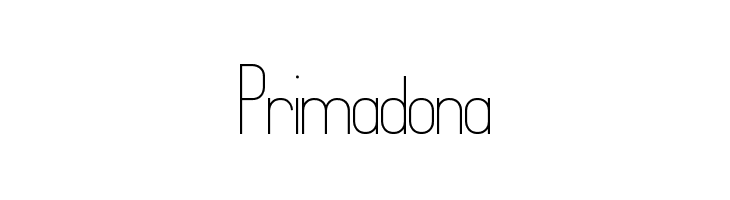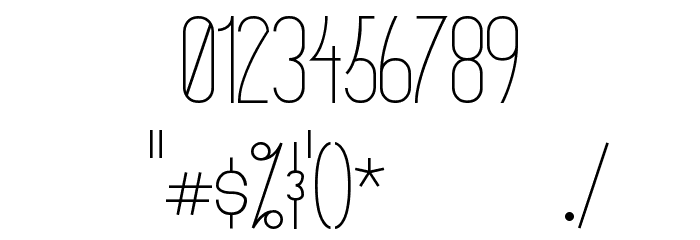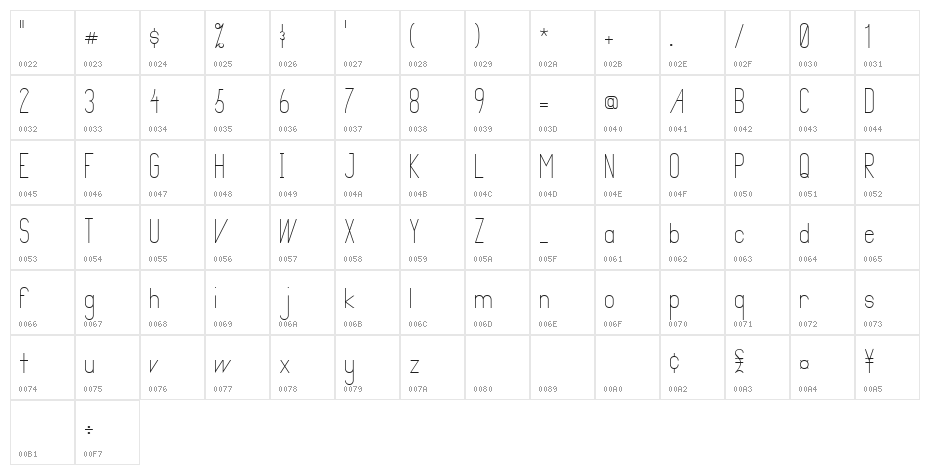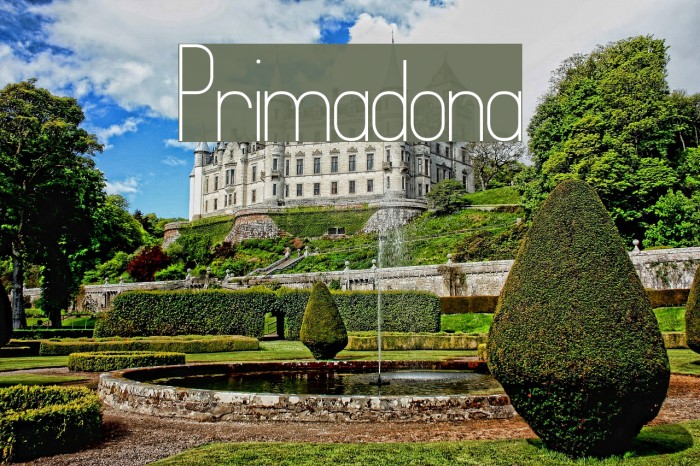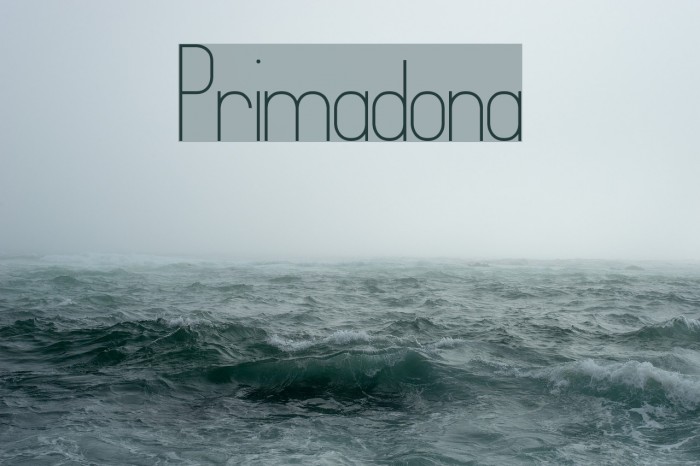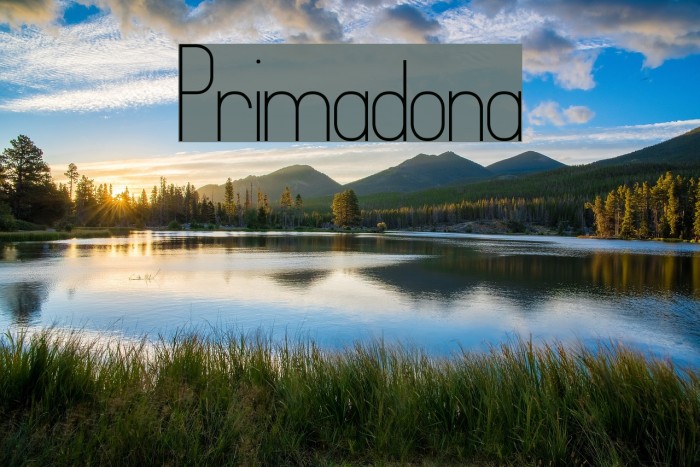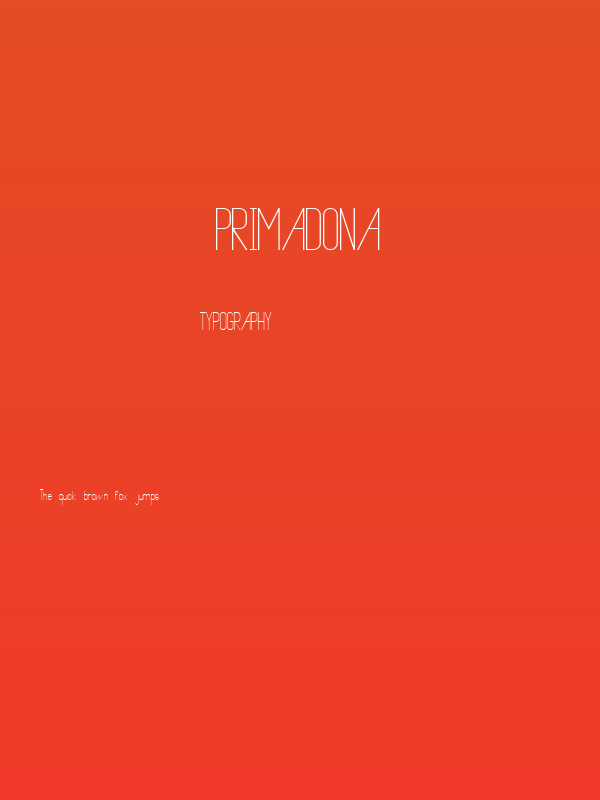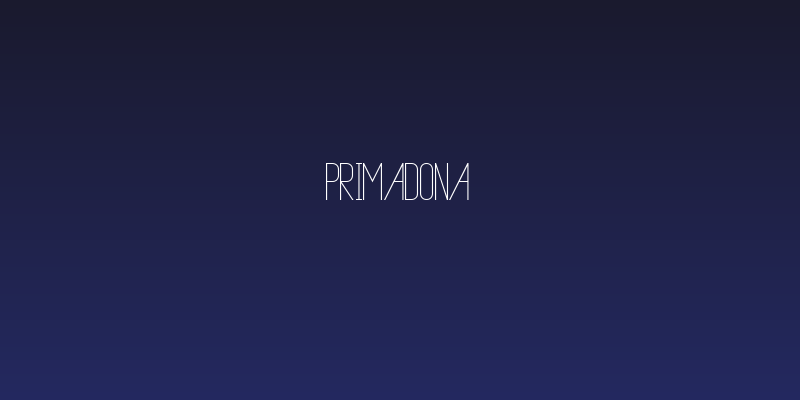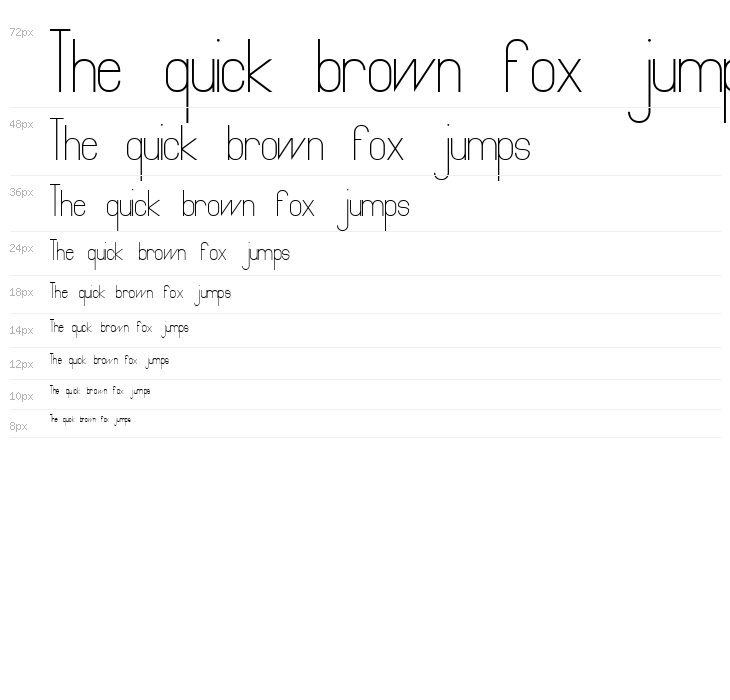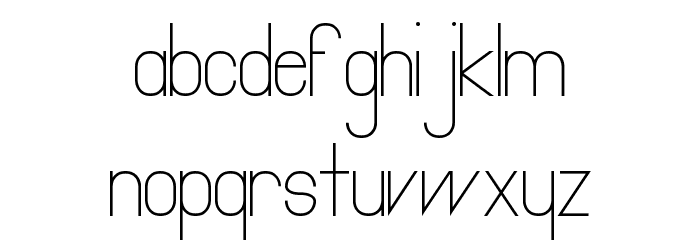
Primadona Font
Primadona Description
This font features a sleek, modern design with elongated, thin strokes that give it a sophisticated and elegant appearance. The characters are tall and narrow, with a consistent stroke width that maintains a clean and minimalistic look. The uppercase letters are particularly striking, with sharp angles and a geometric feel, while the lowercase letters complement them with a slightly softer, more rounded approach. The numerals and special characters maintain the same thin, elongated style, ensuring a cohesive appearance across all text. This font's unique style makes it ideal for projects that require a contemporary and stylish touch.